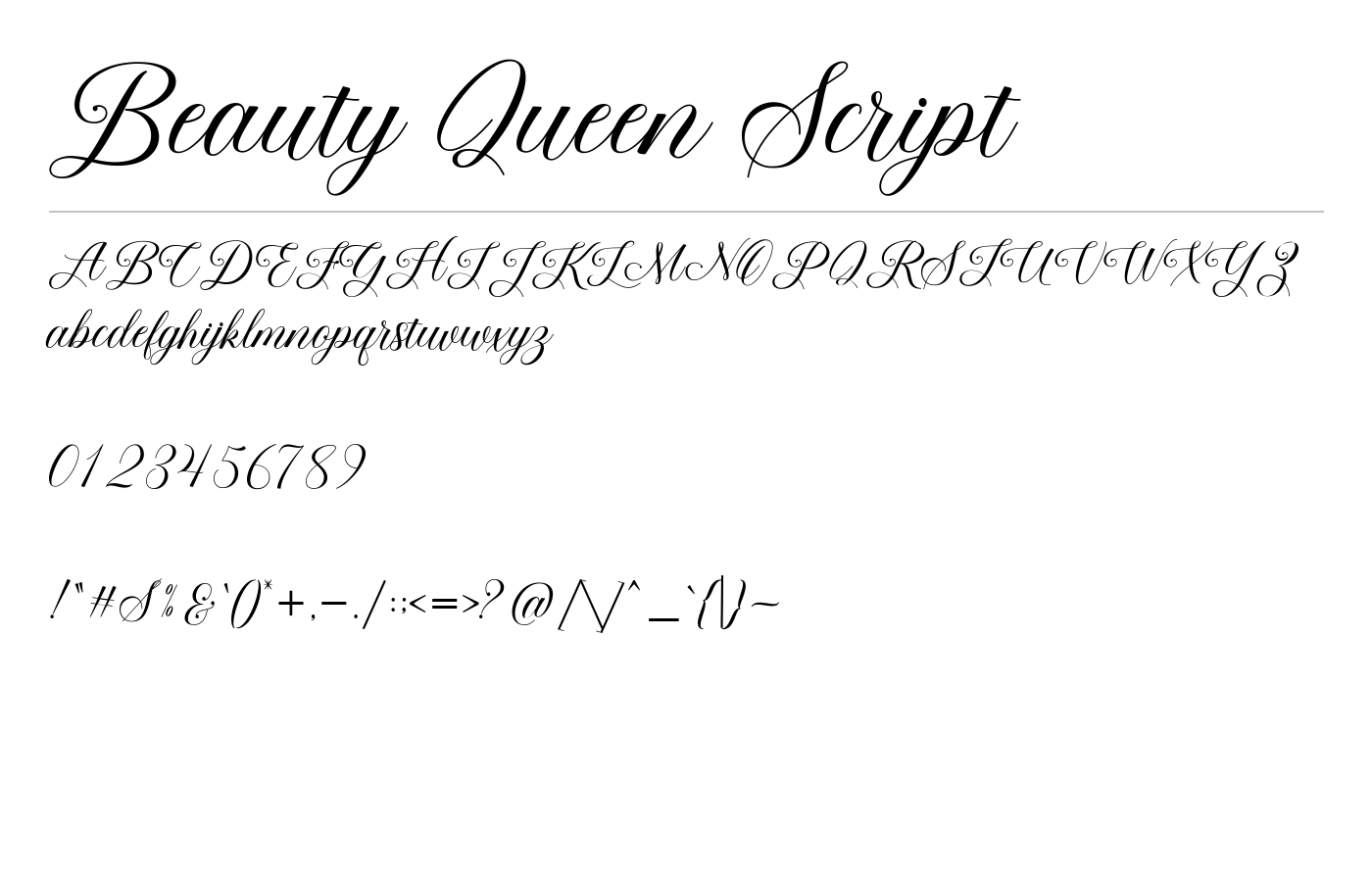
Beauty Queen Script is an elegant and delicate script font characterized by its graceful, flowing letterforms and fine strokes that create a sophisticated, feminine feel. With its high contrast between thin and slightly thicker lines, stylish swashes, and classic cursive style, it works beautifully for luxury branding, wedding invitations, and upscale editorial designs where a refined, romantic touch is desired. This font shines in headlines and decorative uses, adding a timeless and graceful allure to any project.
Beauty Queen Script Font
About Beauty Queen Script Font
| Font family | Beauty Queen Script Font |
| Designer | RIZKI ANDIKA |